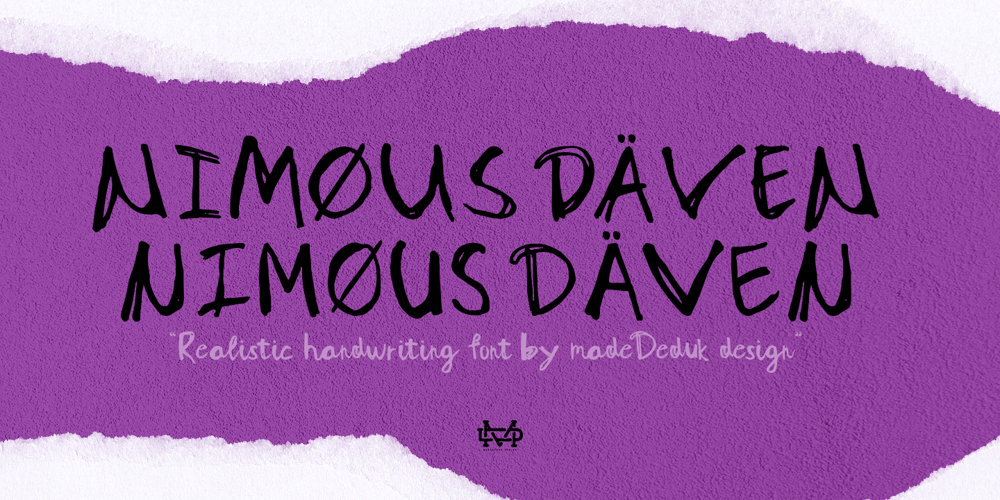
Nimous Daven Font Family was designed by madededuk and published by madeDeduk. Nimous Daven contains 2 styles and family package options. Nimous Daven is a distinct hand drawn font contains 50+ ligatures with two alternative. Nimous Daven is great for branding, posters, logos, invitation, writing and headings.Feature Uppercase & Lowercase Number & Symbol International Glyphs Multilingual support Alternative Ligature Thanks so much for checking out my shop and feel free to drop us a message any time and follow my shop for upcoming updates